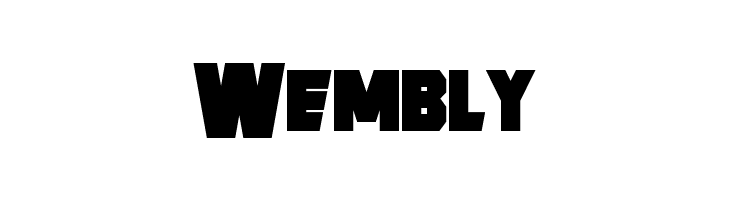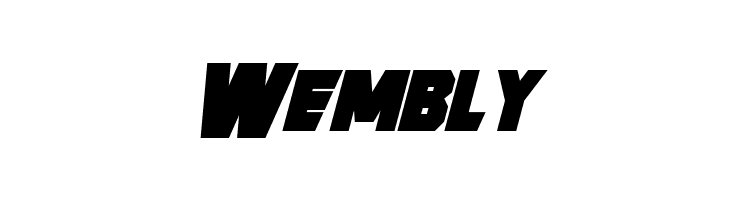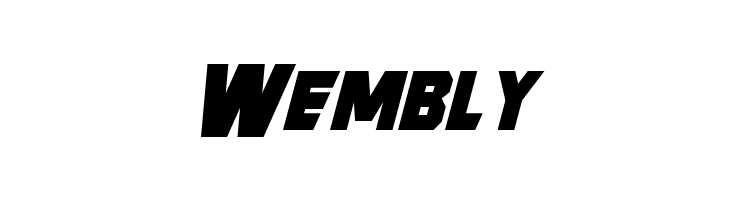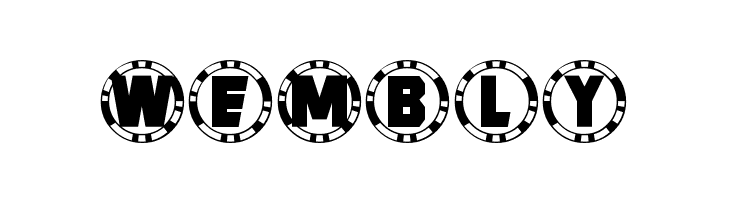
Strongarm Italic Font
A bold, italic font with a dynamic, angular style.
Strongarm Font
A bold, geometric font with strong, blocky characters.
Strongarm Bold Italic Font
A bold, italicized font with angular, dynamic characters.
Strongarm Bold Font
A bold, geometric font with a strong, industrial aesthetic.
Strongarm Caps Font
A bold, decorative font with uppercase letters and numbers encased in poker chip-like circles.